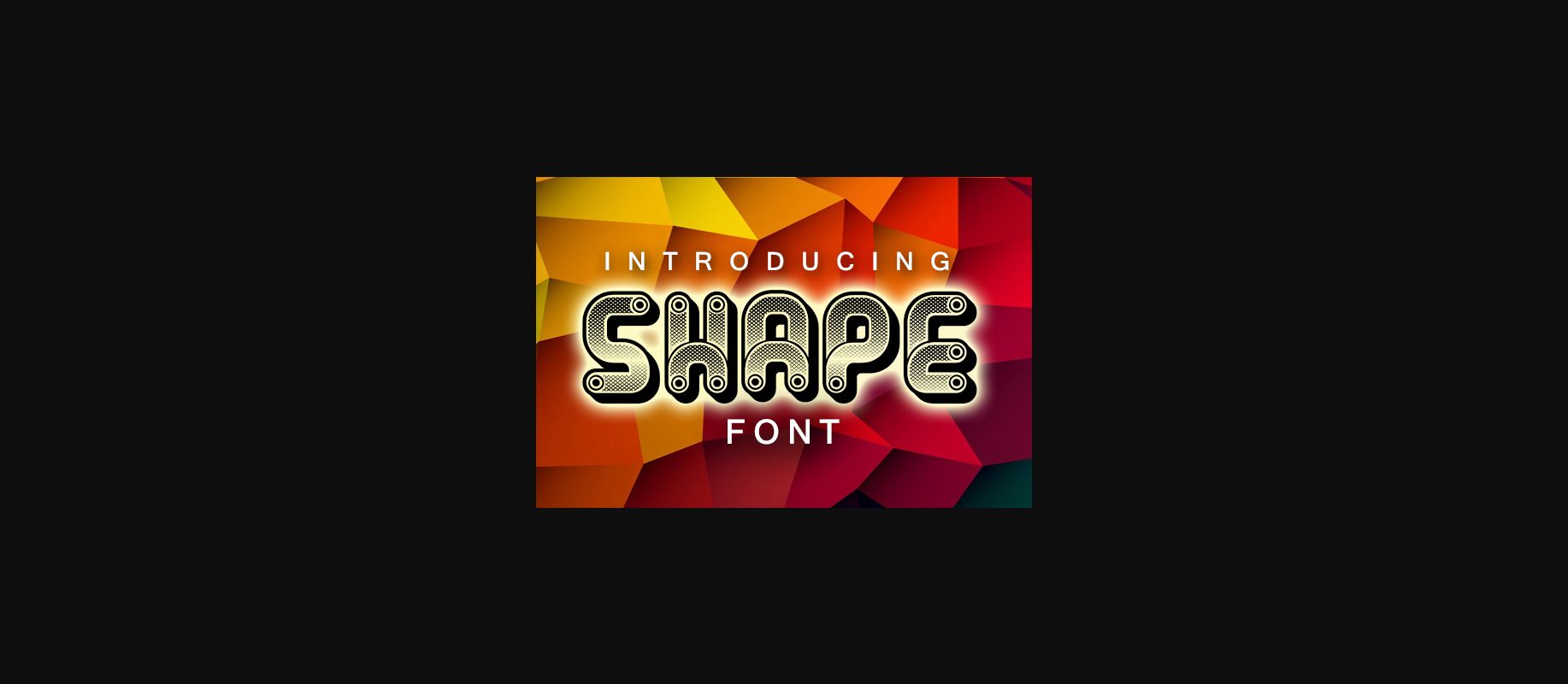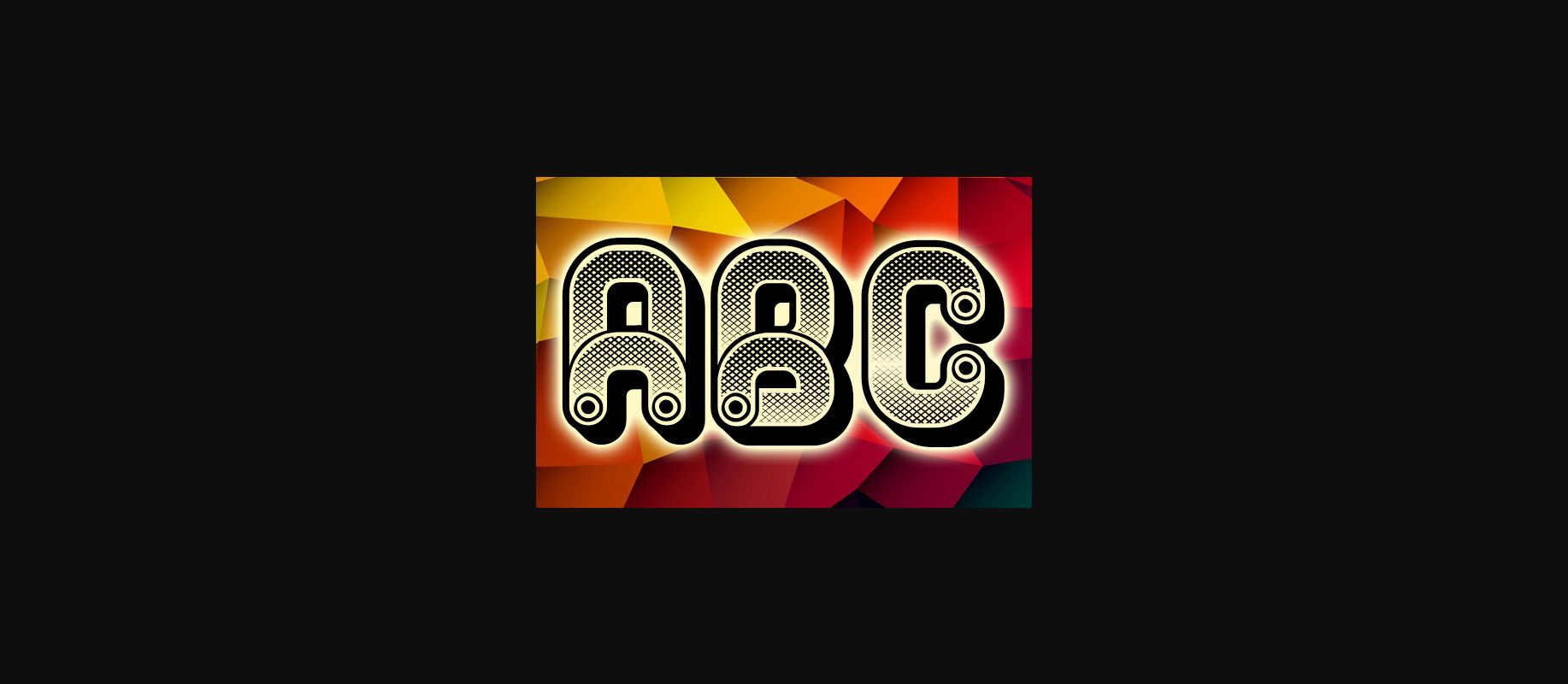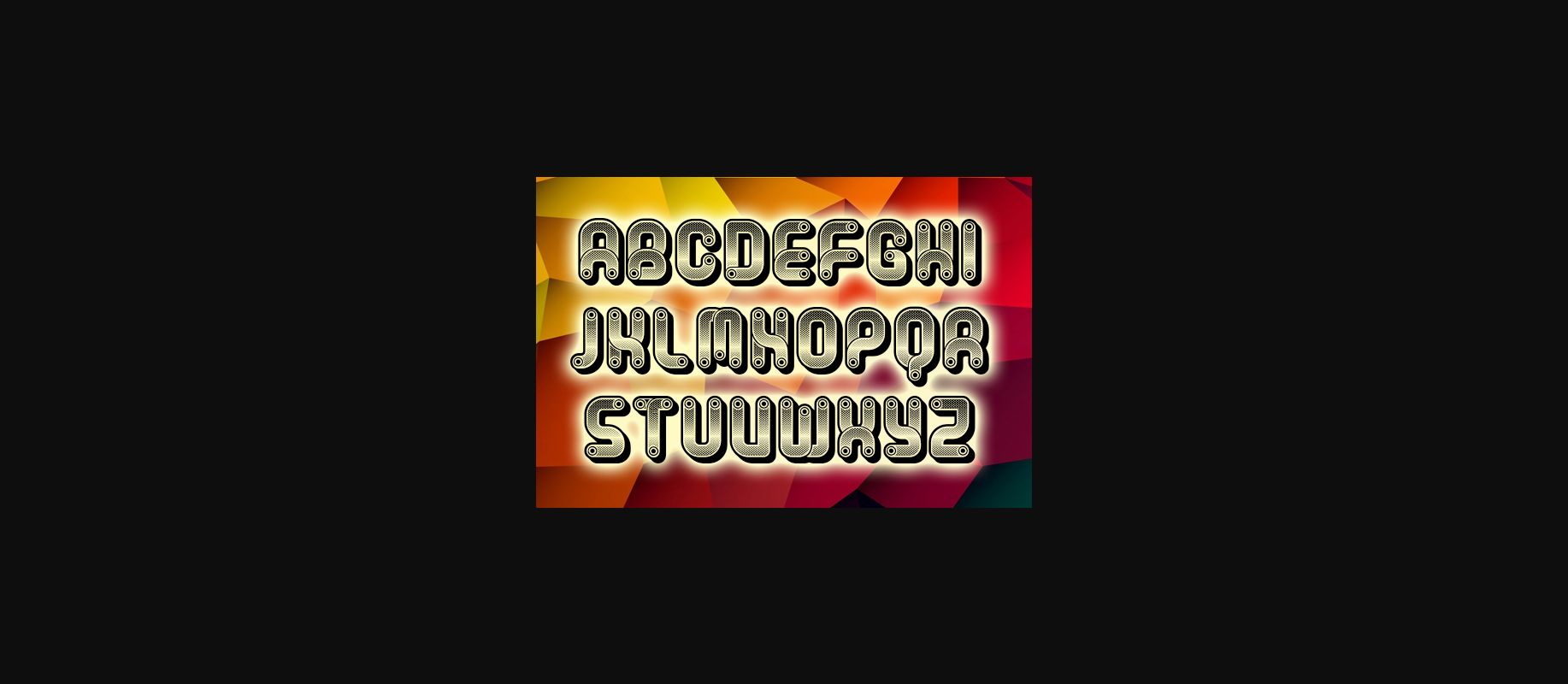
About Shape Font
Shape is a bold and authentic display font. It celebrates abstract shapes in all their eclectic brilliance. Add this font to your creative ideas and notice how it will make them stand out!